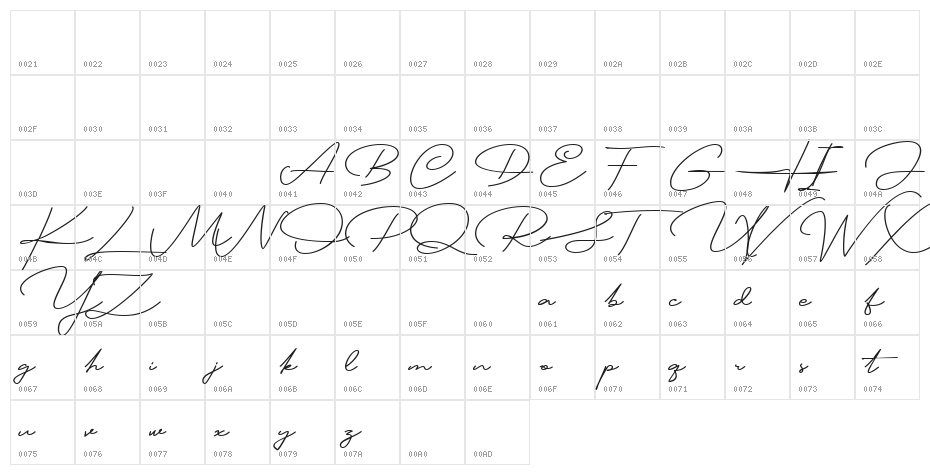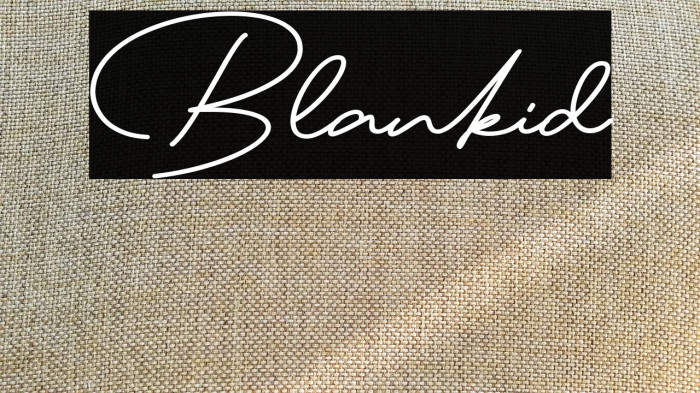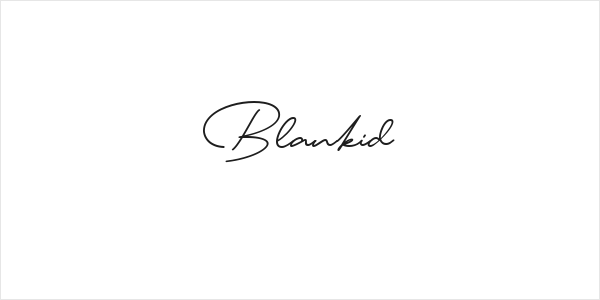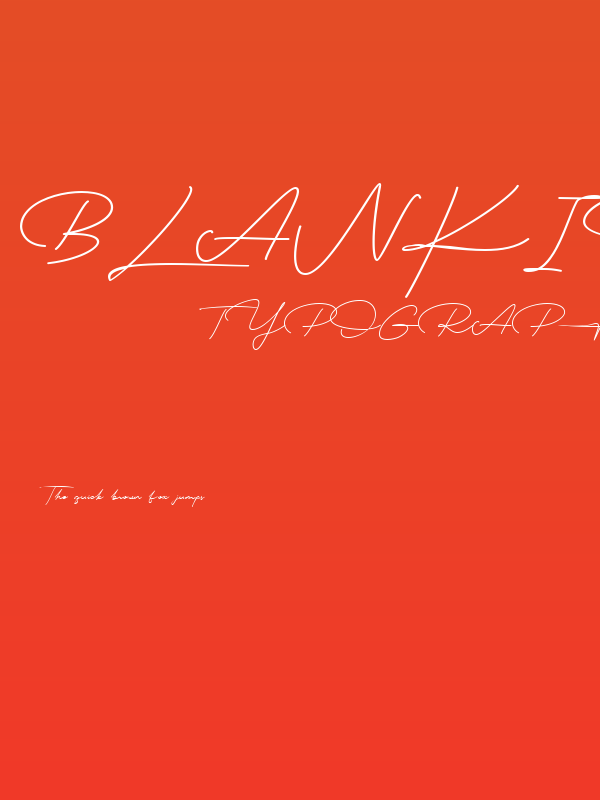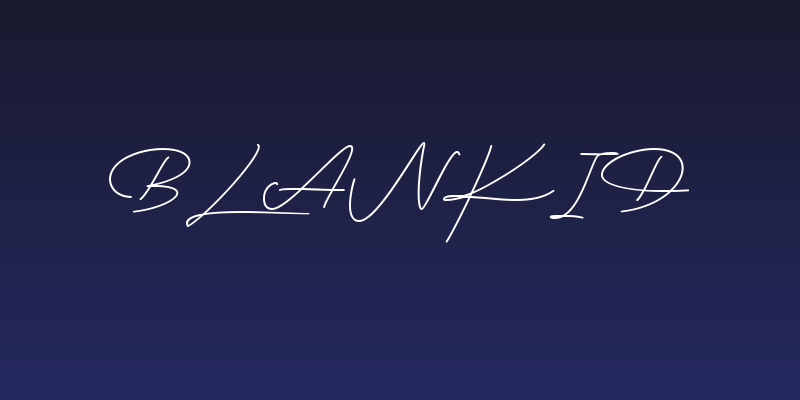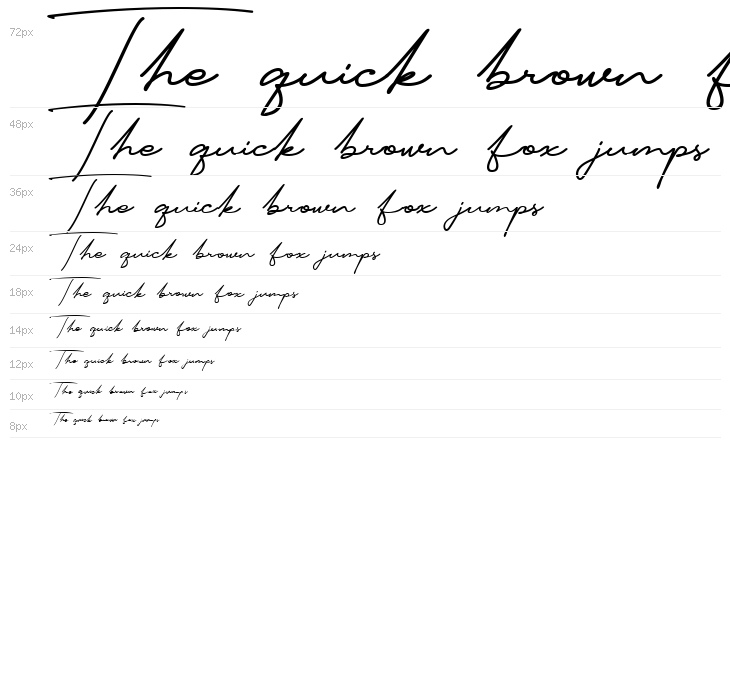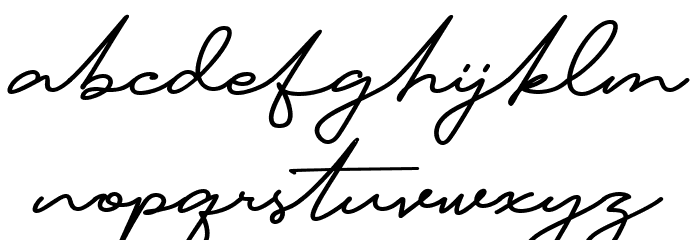
Blankid Font
Blankid Description
This elegant script font features a flowing, cursive style with smooth, continuous strokes that connect each letter seamlessly. The uppercase letters are delicate and refined, with a thin line weight that gives them a sophisticated appearance. In contrast, the lowercase letters are bolder and more expressive, adding a dynamic flair to the overall design. The font's graceful curves and loops create a sense of movement and fluidity, making it ideal for projects that require a touch of elegance and artistry. The consistent slant and uniformity in letterforms ensure readability while maintaining an artistic appeal.